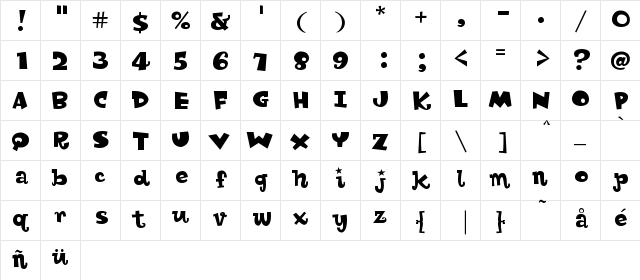
KreamyPKA Regular
Design Context for KreamyPKA Typeface
KreamyPKA is a composed and adaptable typeface that performs quietly and consistently across a wide range of design contexts.